Are you ready to create the designs of the future by choosing cyberpunk styles like this time we have prepared over 20 impressive cyberpunk fonts. Let tomorrow come to your design workshop today.
The cyberpunk design trends is now back. You may have seen it on everything from cool retro futuristic posters to flyers, movie titles and even product packaging designs. All of these cyberpunk fonts has been crafted by professional designers and are in the best quality no matter it is free or premium item. Keep a good mood and enjoy.
Cyber City Font
It is a modern san serif font that gives a clean, minimalist and futuristic impression. Perfect for covers, posters, titles, flyers, movie designs and etc.
Qlorie – Display Font
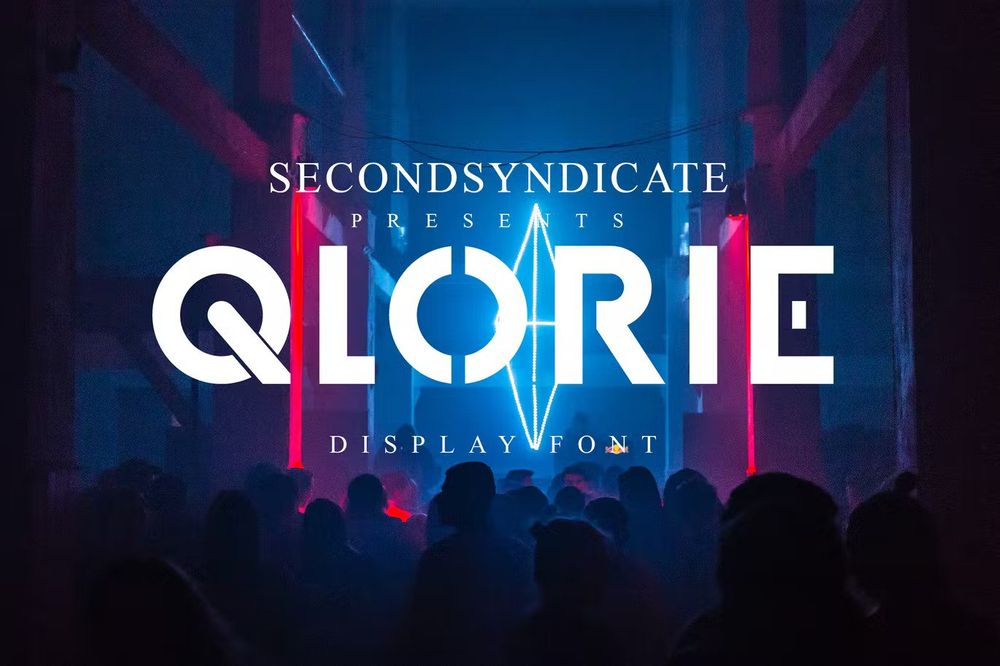
It is a modern display font brings an amazing touch to your futuristic designs such as posters, flyers, titles, covers, headings, logos and etc.
Oxta – Cyberpunk Font
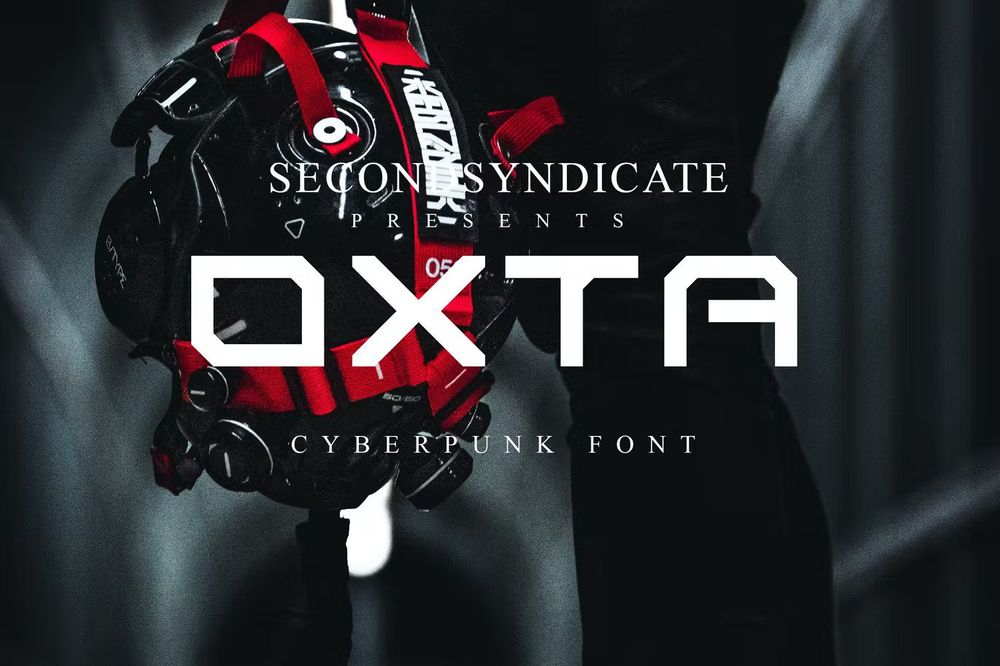
It is an modern futuristic font for your awesome designs such as posters, covers, flyers, logos, packaging, titles and etc.
Cynatar Font Duo
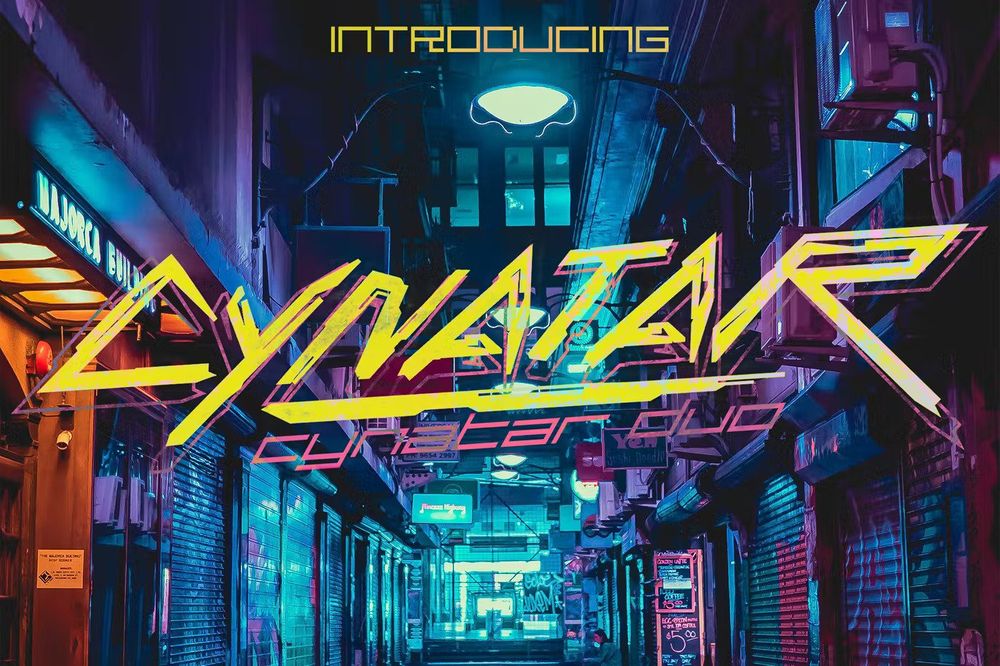
It is a sci-fi cyber font inspired by futuristic styles. Great for movies posters, games, and all other design types.
Dirtchunk – Futuristic Font
A new breakthrough in the futuristic world. Perfect for album cover designs, movie titles, games, apps, landing pages and etc.
Wraith Font
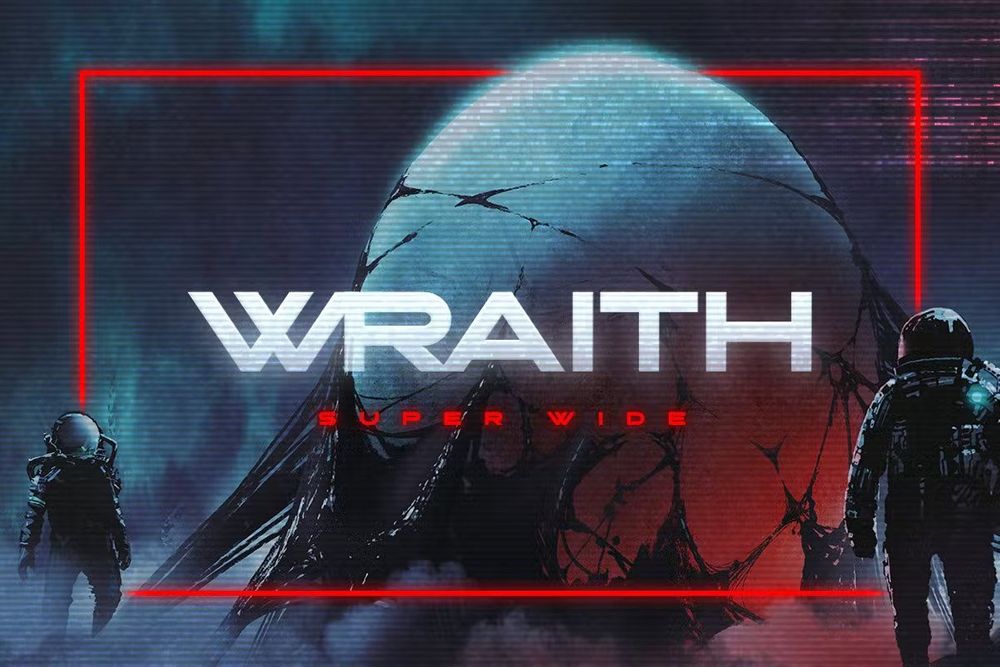
It is a wide font with ultra tight spacing. Ideal for titles and not long blocks of text.
Cybergrose – Cyberpunk Display Font
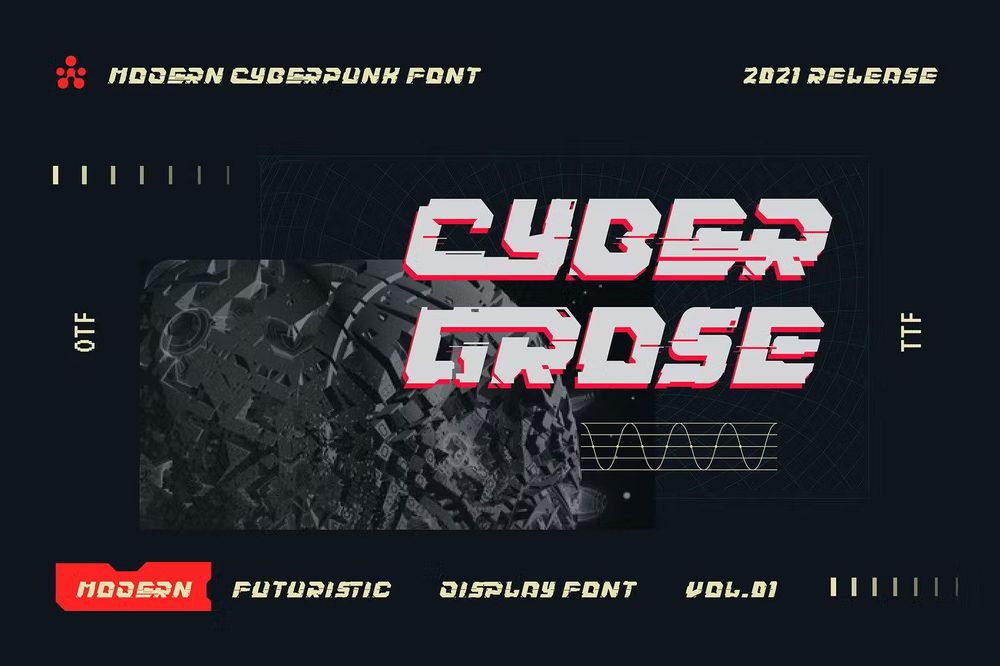
This font is a cool combination of powerful, sporty, automotive, elegant, and futuristic. Suit perfectly for online games, posters, movie titles, fast food menus, magazines, covers and etc.
Zorfich – Cyberpunk Display Font
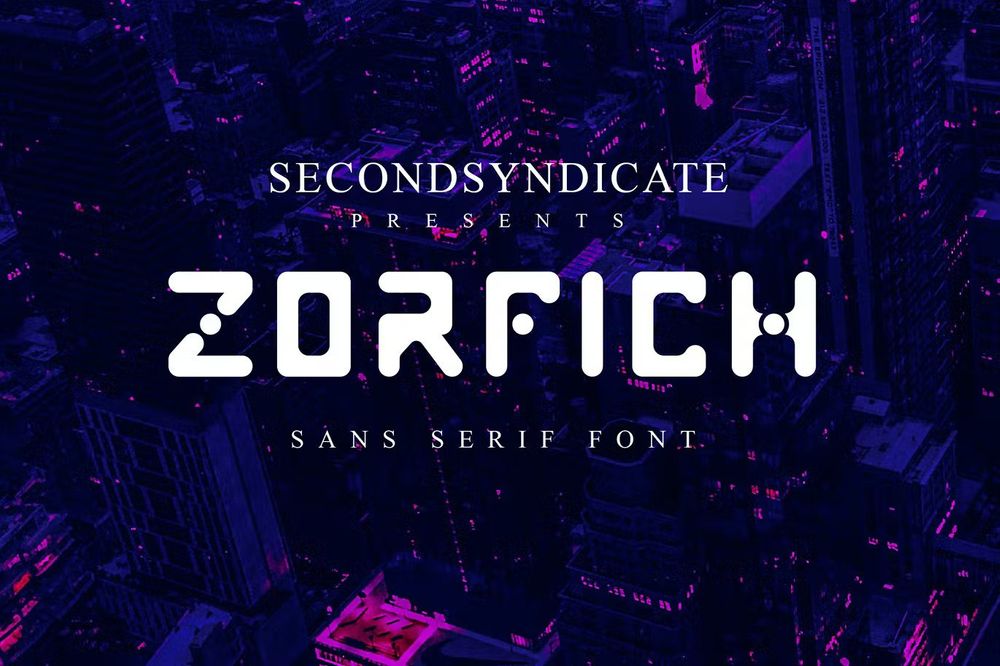
It is a cyberpunk display font for all your design needs. Perfect for Gaming, titles, movie covers, logos and etc.
Cyberpunk Font
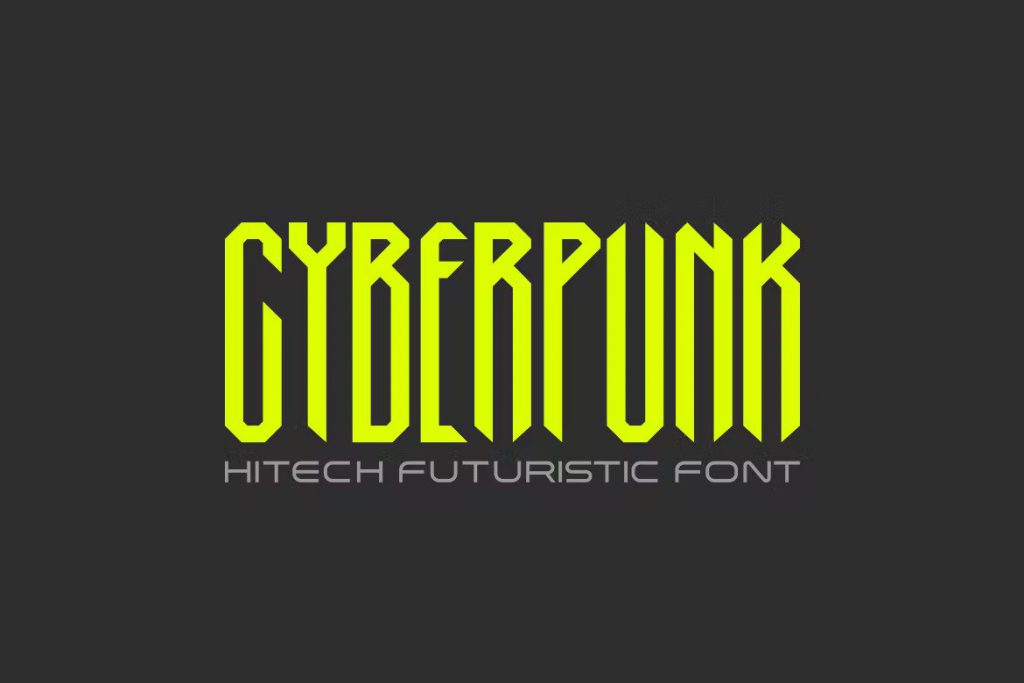
It is two fonts which helping to create hi-tech cyberpunk and gothic atmosphere and style. Ideal for robots & androids, cyberpunk, hi-tech, future, virtual reality, space, army, games and etc.
Sedha – Techno Display Font
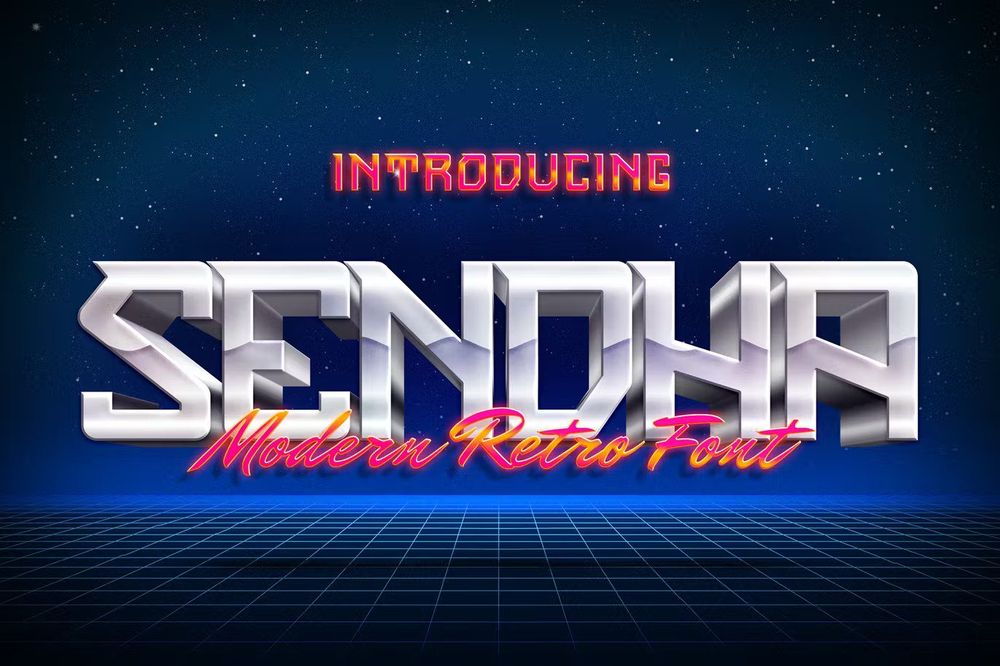
It is a techno display font that may not be familiar to the eye, and this may be due to the unique and blazing design of the font. Perfect choice for esports, music covers, magazine covers, posters, titles and etc.
Free Eternal Font
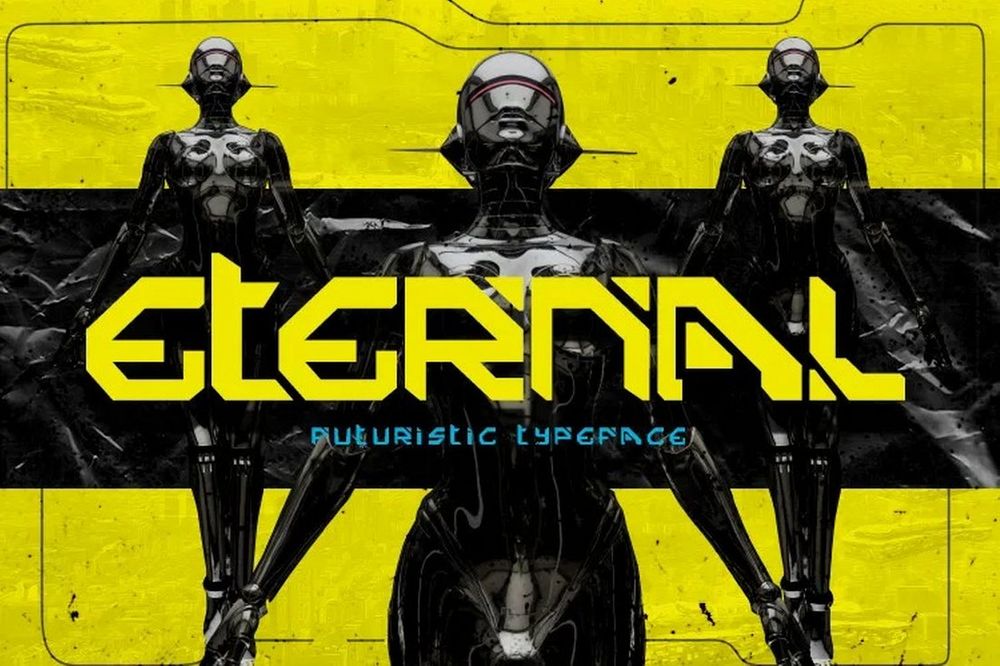
It is a futuristic typeface which was created to bring a futuristic style, electronic robot and unique in any design. Perfect for album cover, movie titles, posters and etc.
Free NuMono – Display Futuristic Font
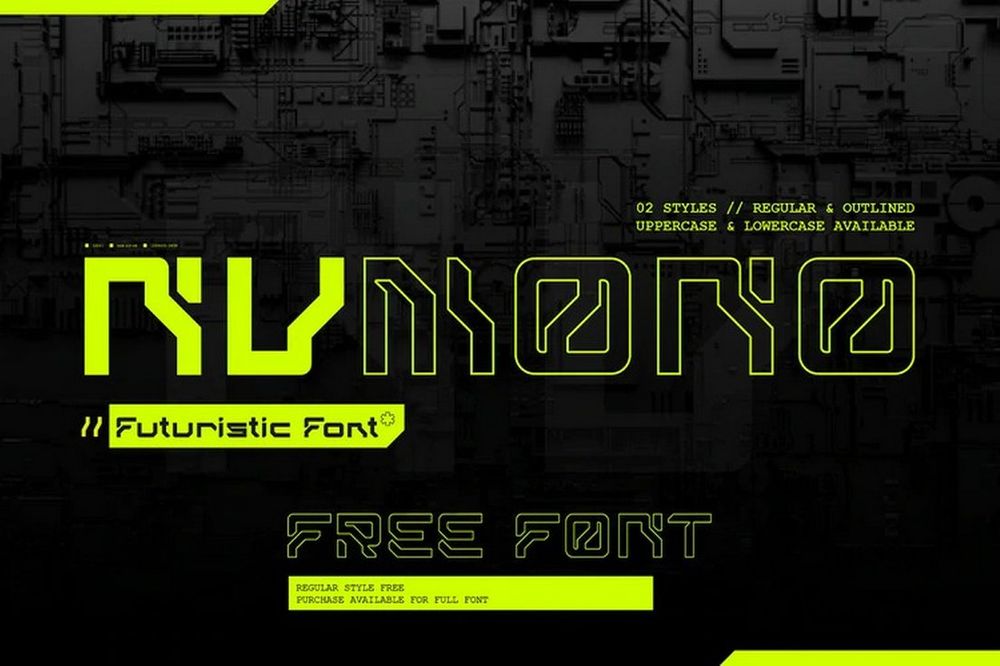
It is a futuristic font with some dystopian undertones. This makes it great for use in projects based on sci-fi, futuristic, cyberpunk genres. So good as a display font as well as still being very legible on smaller scales.
Free Aperath Font
It is an modern cyberpunk font for your futuristic designs such as posters, logos, covers, titles, gaming and etc.
Hyperwave Font
An energetic set of brush fonts with a sharp attitude. So good for logo designs, brand imagery, handwritten quotes, product packaging, merchandise and etc.
Free Metuo Font
It is a modern font available in four weights. Easy to read with eye-catching graphics. It goes well with tech and futuristic themes and may be used for a variety of things, including business logos, packaging, and posters.
Zephyrust – Futuristic Font
It is a modern futuristic font. Perfect for technology, digital, space galaxy theme and etc.
Cyber – Technology Font
Create science fiction posters and flyers, website headers, high-tech logos and so much more with this amazing font.
Cyberflash / Display Font
It is a futuristic display font so good for greeting cards, branding materials, business cards, quotes, posters and etc.
SB Defcon – Cyberpunk Font
It is a pack of four fonts that are designed to be mixed and matched. Perfect for futuristic designs, gaming, music covers, video titles and etc.
MBF – Modern Rebel Cyberpunk Font
A futuristic display font with cyberpunk era inspiration. Best usage as a titles, large size display, logotypes, wordmarks and etc,
Cyberhype Font
It is a bold display font with a glitched look. Ideal for futuristic designs, gaming, movie titles, music covers, posters, display and etc.